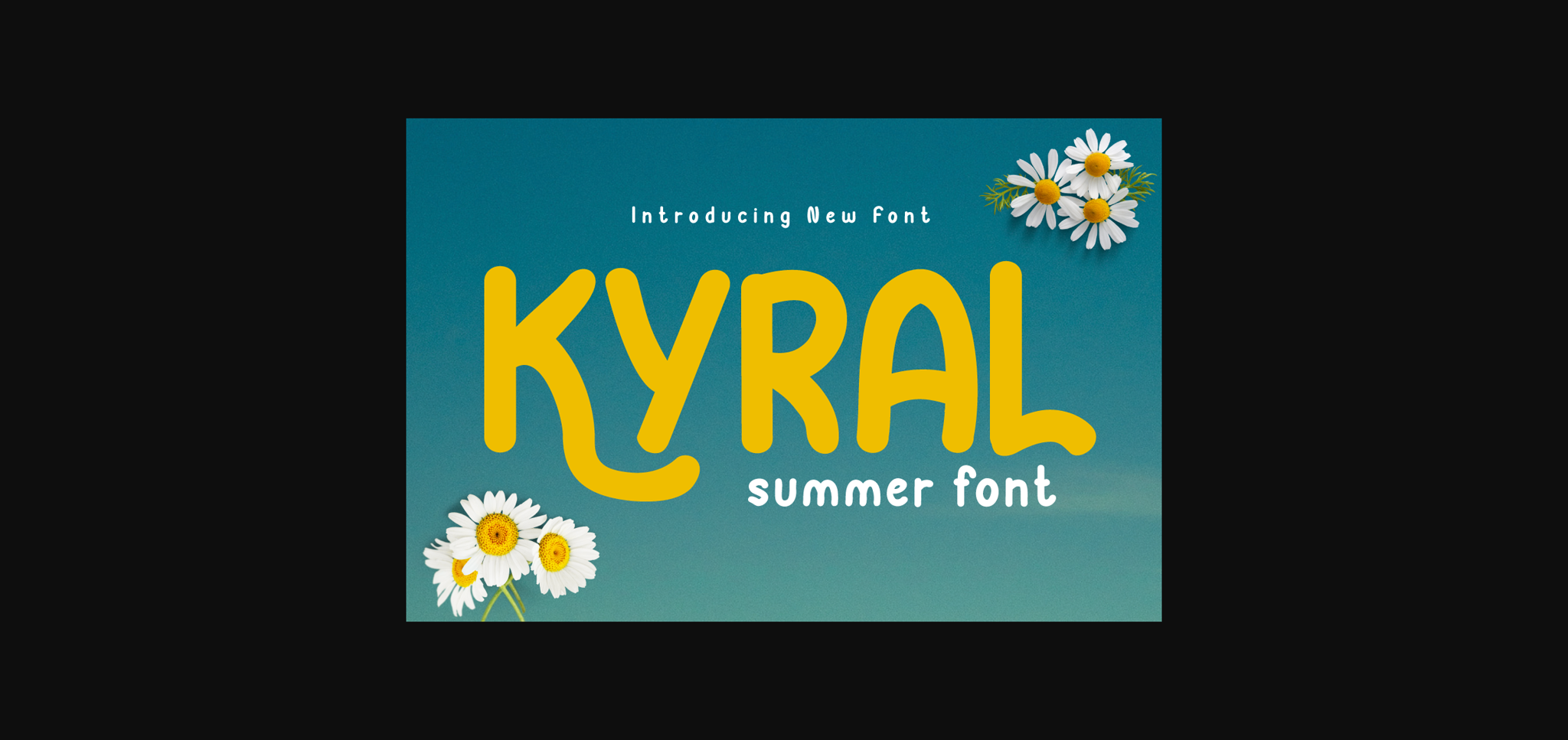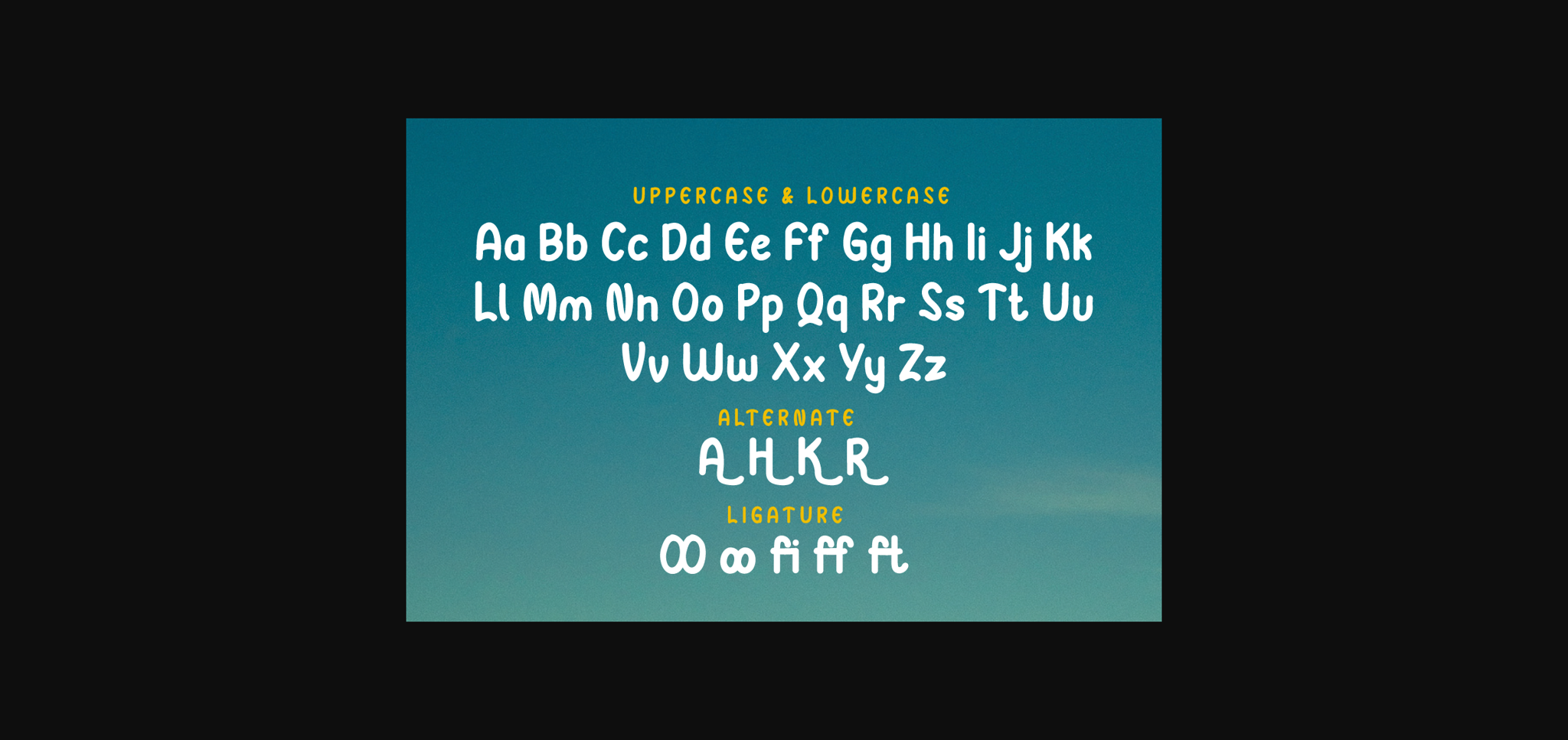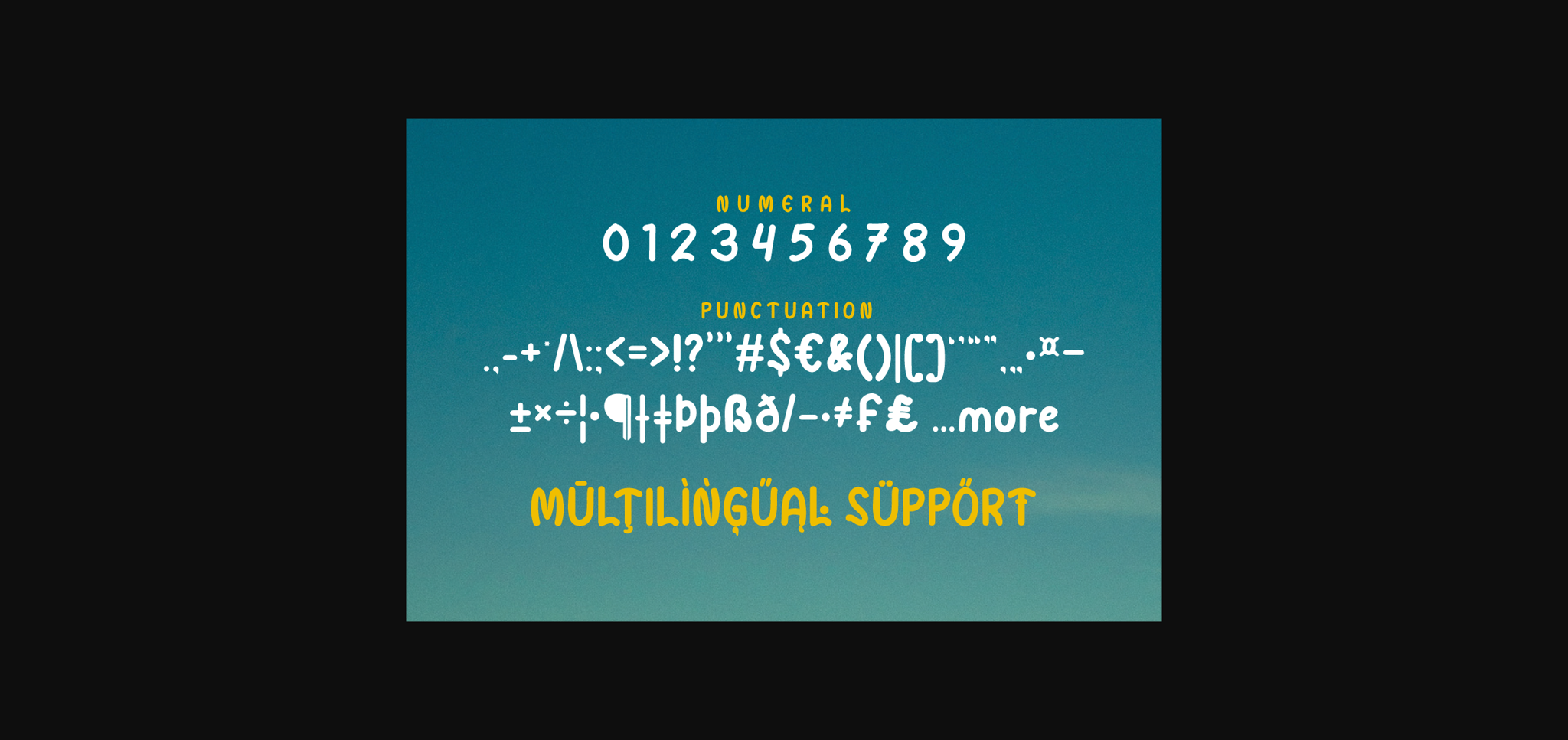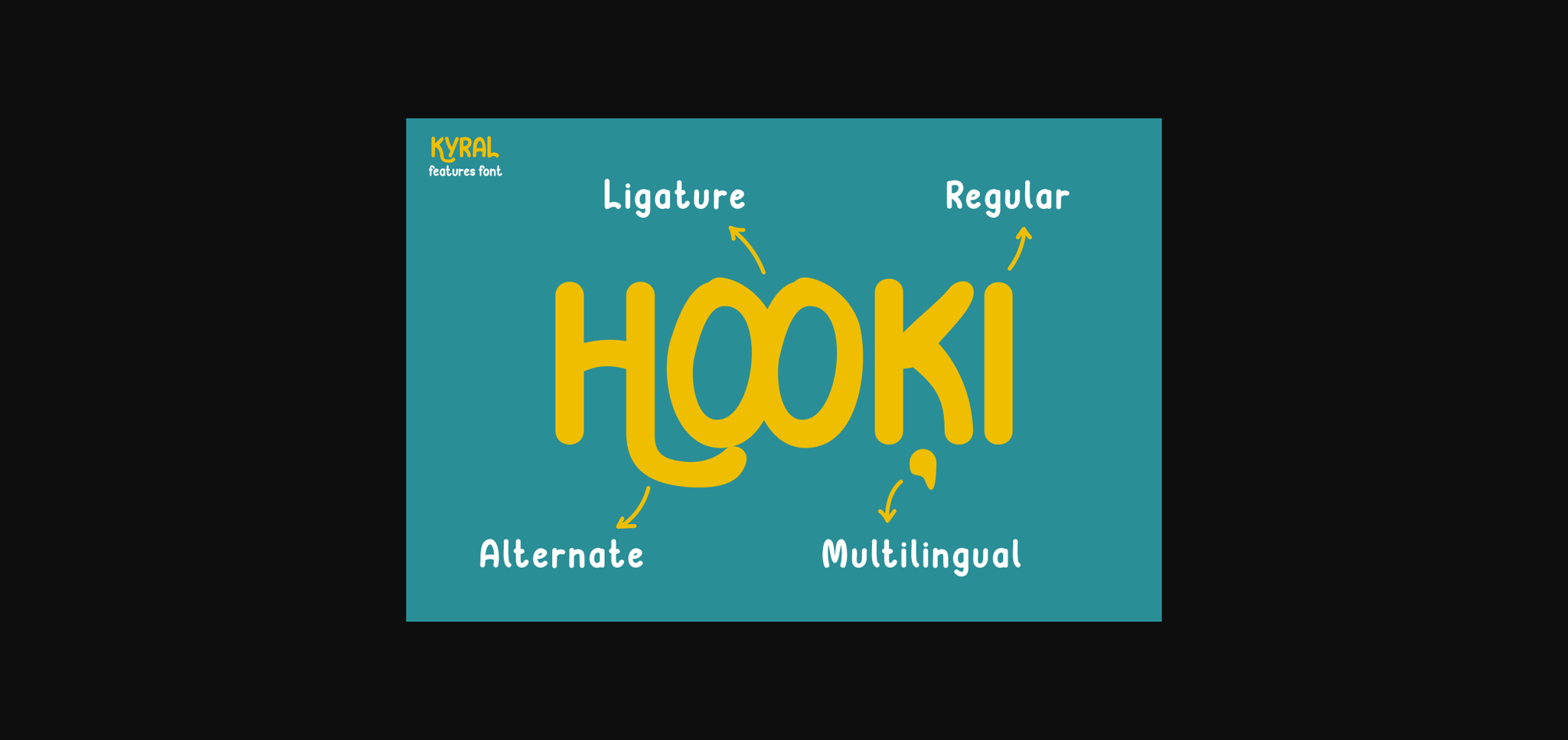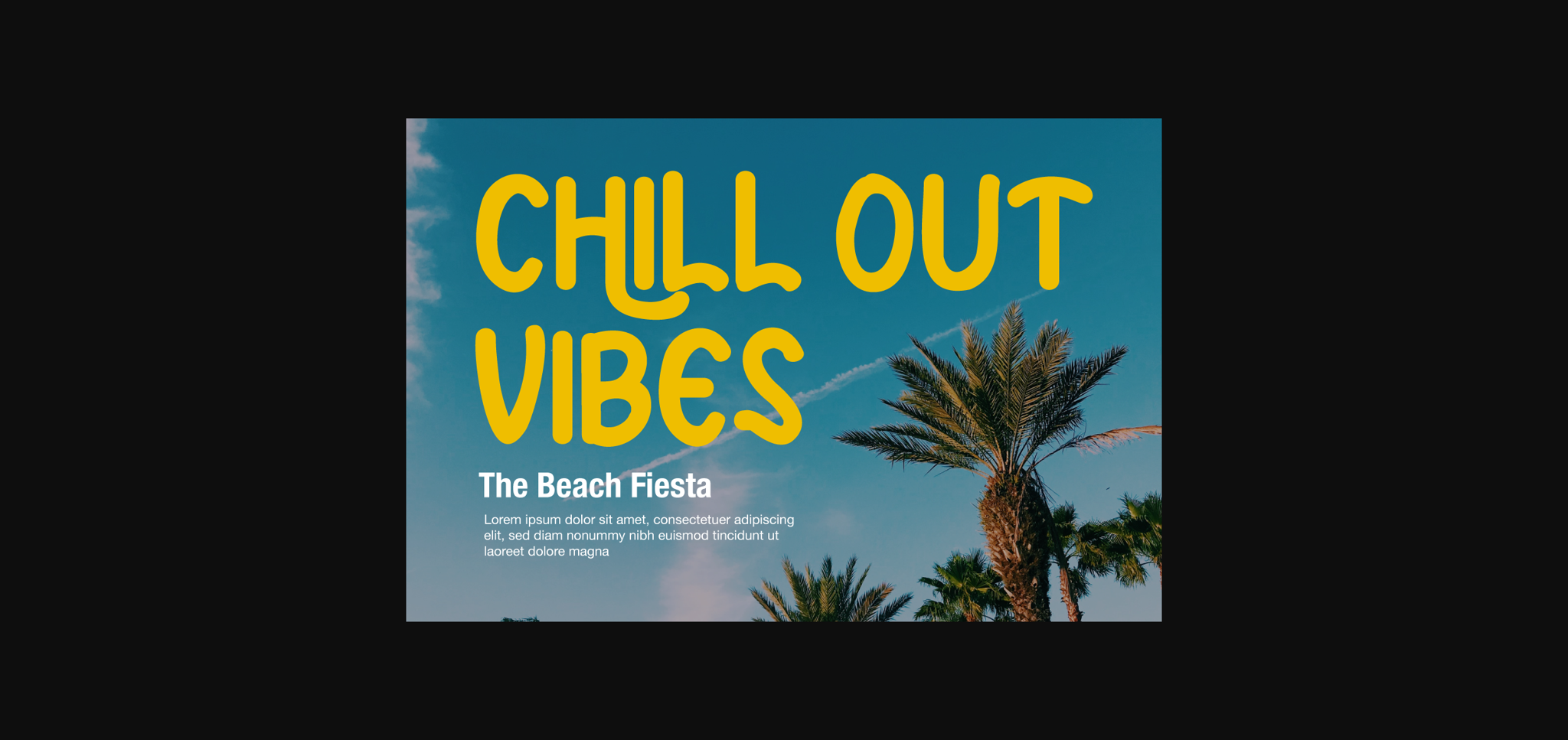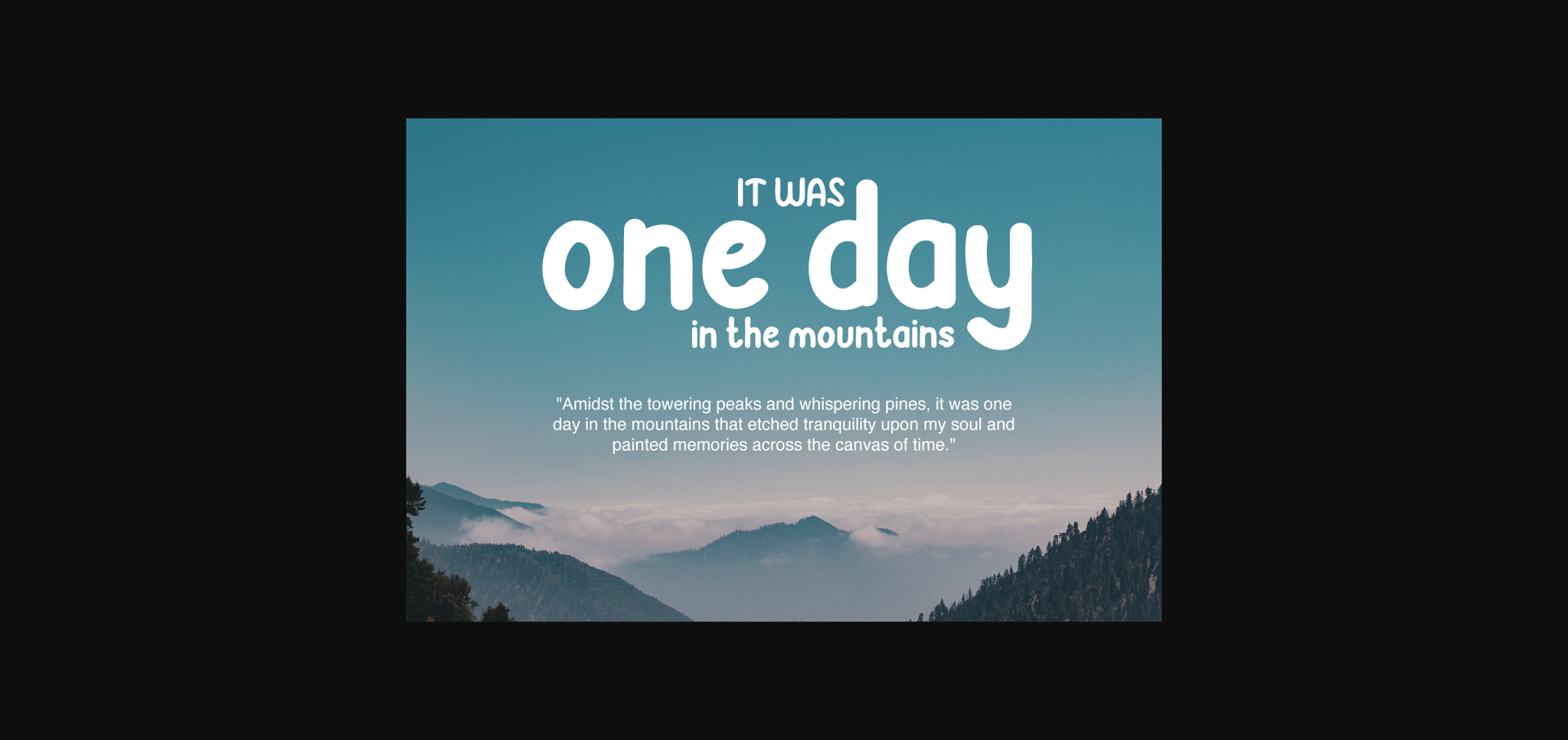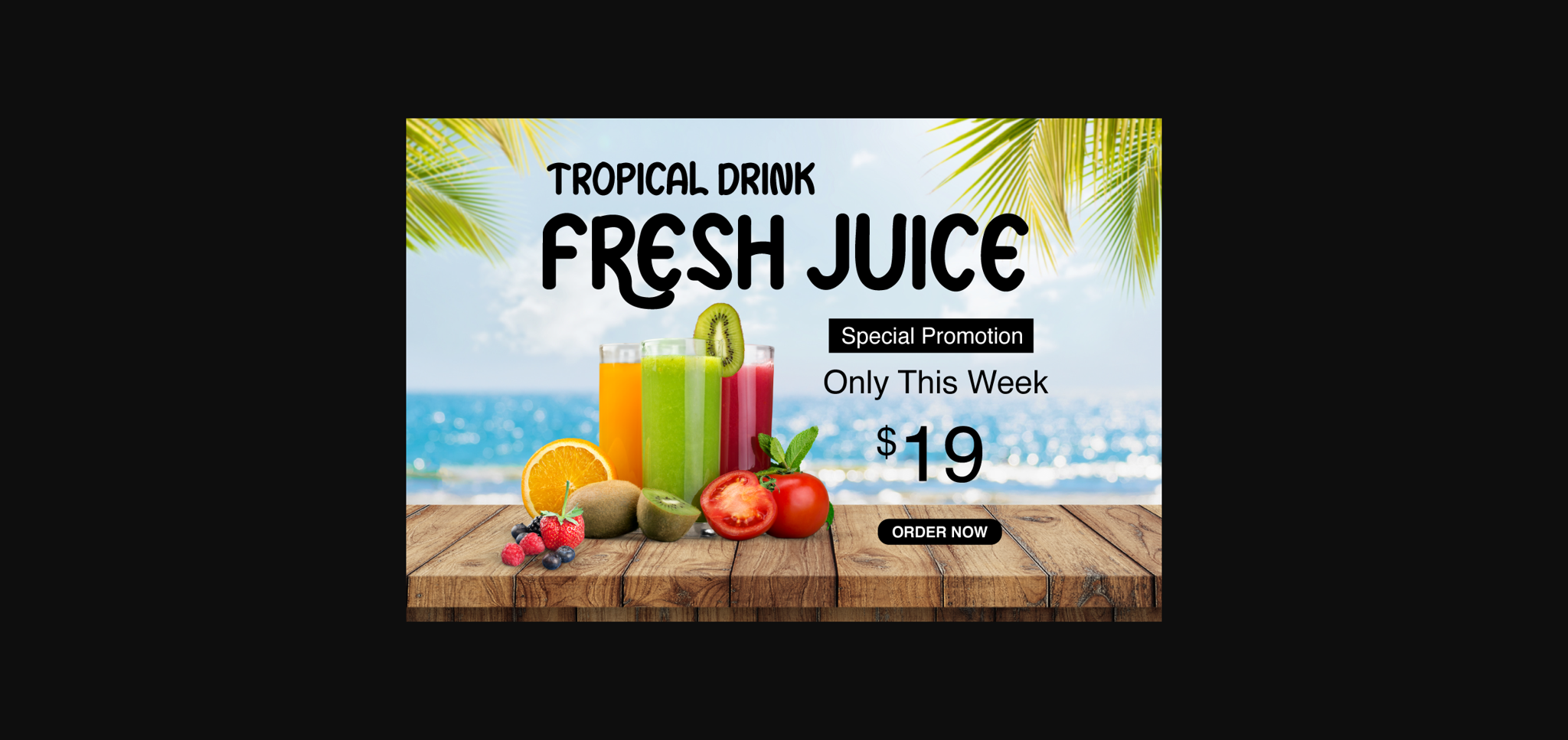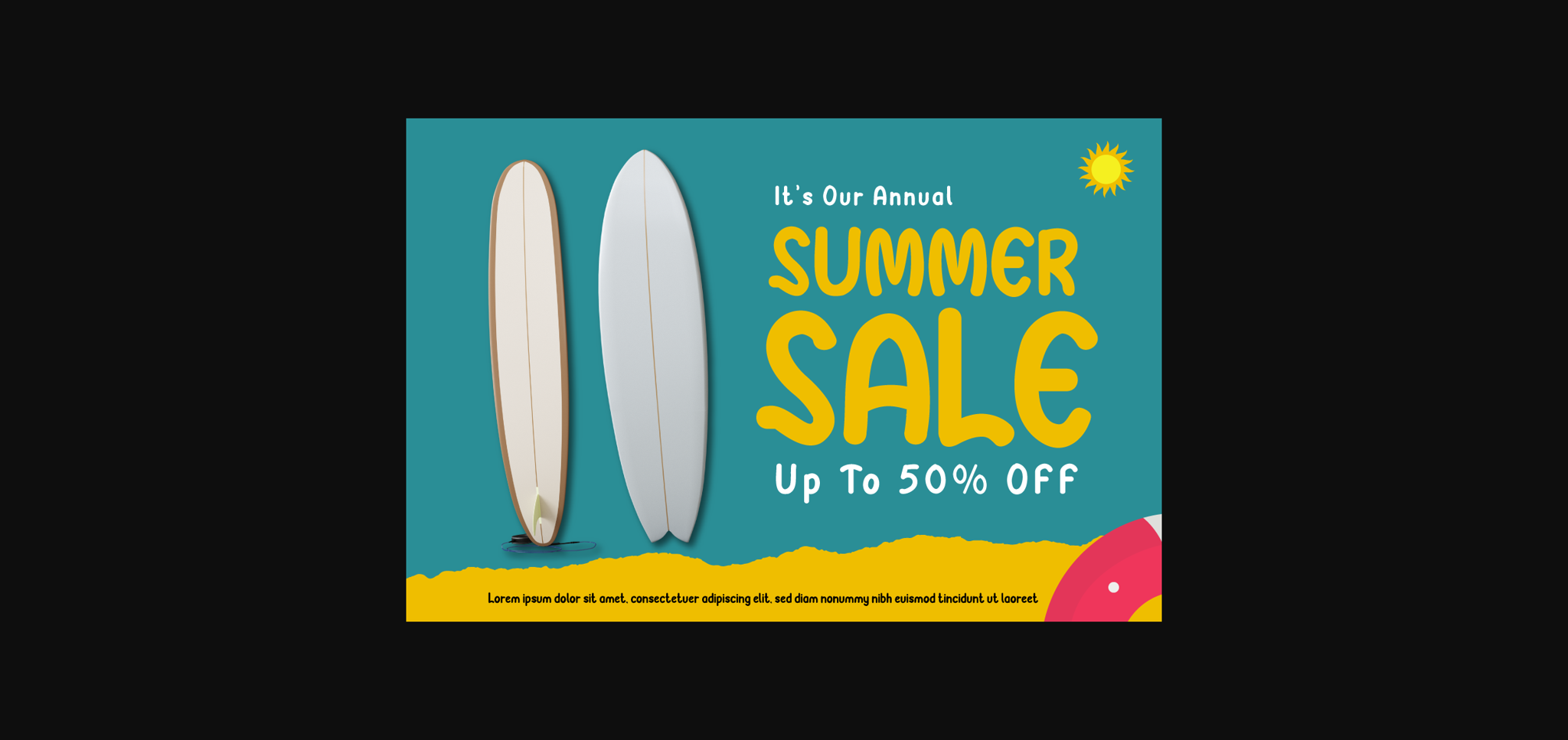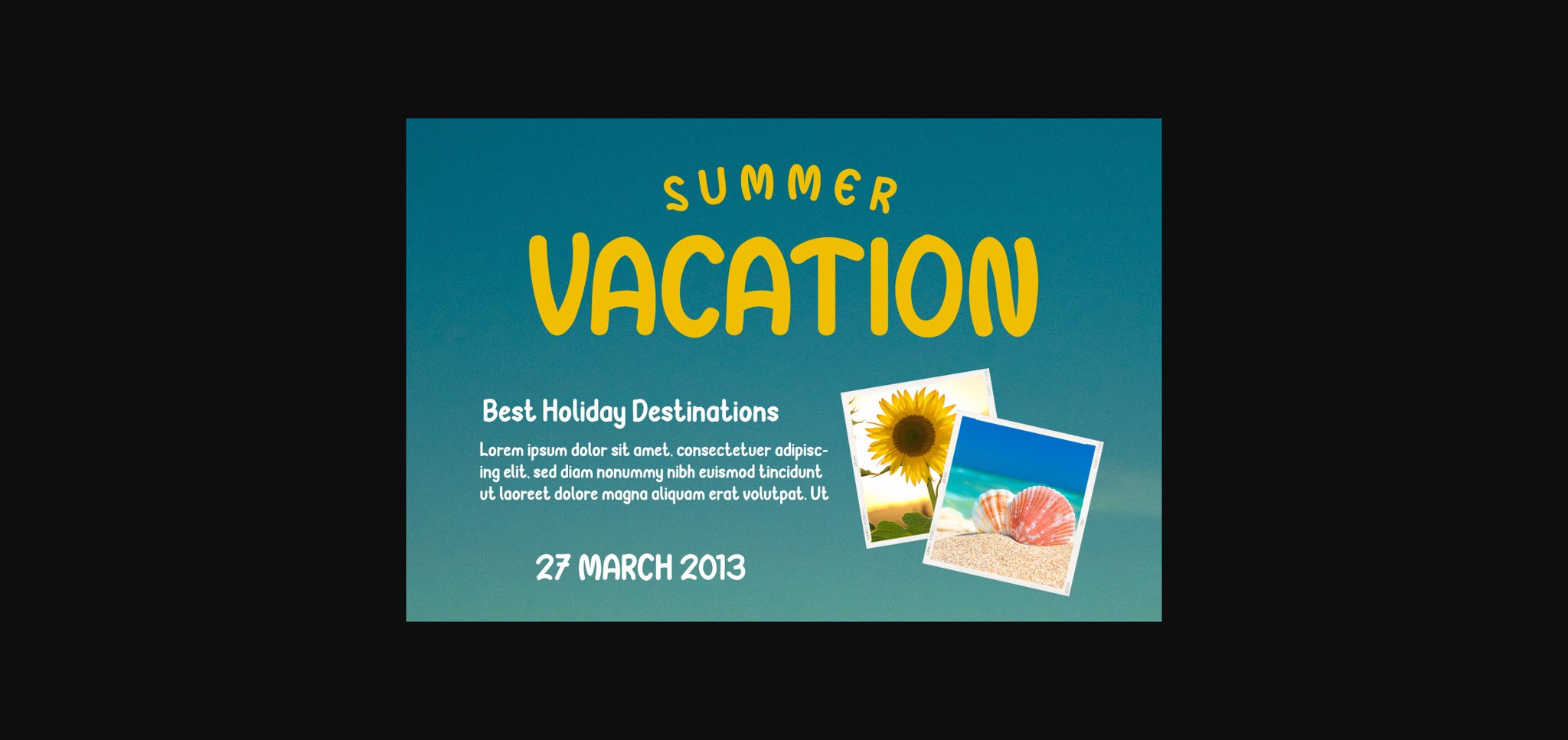
Kyral Font
About Kyral Font
Introducing “KYRAL Font” – Capturing the Essence of a Blissful Summer.
KYRAL Font brings the carefree spirit of summer to life in your design projects. With its delightful summer theme, this font is your perfect choice for infusing the season’s joy into your creative works. Whether you’re crafting beachside invitations, tropical posters, or sun-soaked social media graphics, KYRAL Font effortlessly embodies the very essence of summer, immediately captivating attention and infusing your designs with the warmth and happiness of the season.
Artfully crafted with the lightheartedness of summer in mind, KYRAL Font radiates the energy and exuberance of this sun-drenched time, creating a vibrant and inviting atmosphere in your designs.
Its adaptability knows no bounds, seamlessly fitting into a wide range of summer-inspired projects, from travel brochures to festival advertisements.
KYRAL Font enhances readability and fluidity with user-friendly OpenType features, ensuring that your text flows seamlessly. It also offers support for multiple languages, making it accessible to a diverse global audience.
Elevate your creative endeavors and let the joy of summer shine through with KYRAL Font. Discover this unique typeface today and infuse your designs with the delightful spirit of the season.